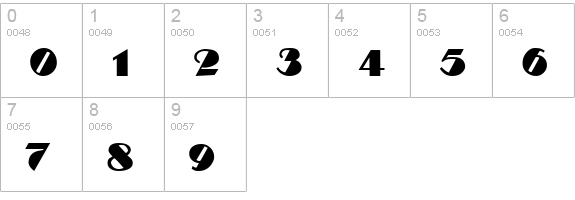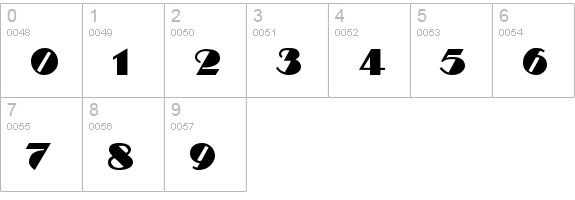
Dolmen Font Details
Dolmen font is a modern and stylish typeface that exudes elegance and sophistication. With its clean lines and sleek curves, this font is perfect for a wide range of design projects, from branding to editorial design. The combination of classic serif elements with a contemporary twist gives Dolmen font a unique and eye-catching look that will make your designs stand out. But the best part? Dolmen font is completely free to download at FontsMarket.com. Yes, you read that right - you can get your hands on this stunning font without spending a dime. Whether you're a designer looking to add a new font to your collection or a creative looking for the perfect typeface for your next project, Dolmen font is a must-have. Download it today and take your designs to the next level with this beautiful and versatile font.